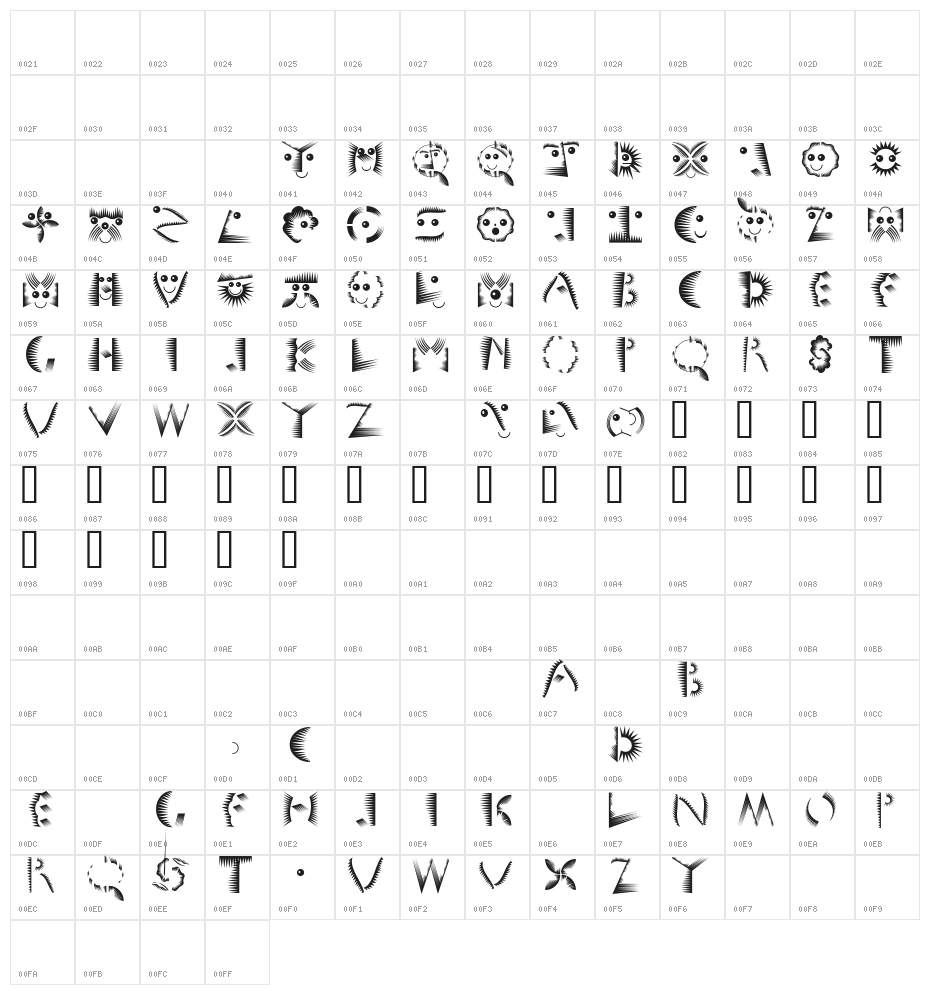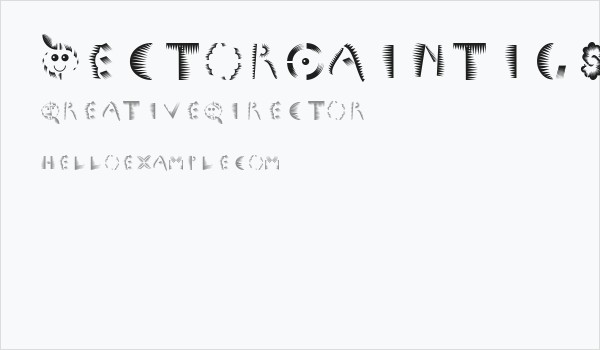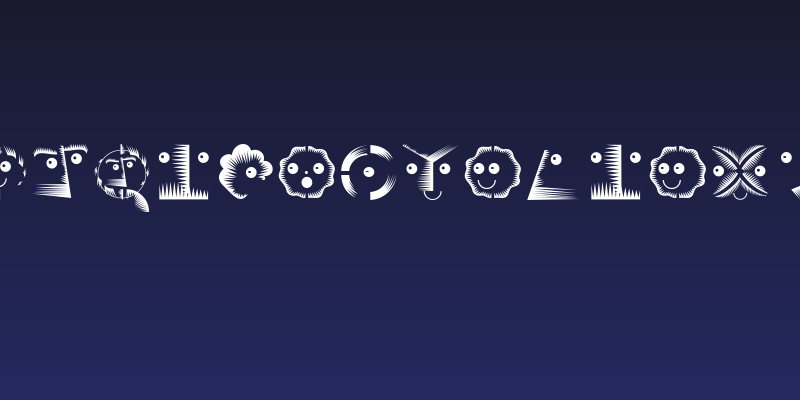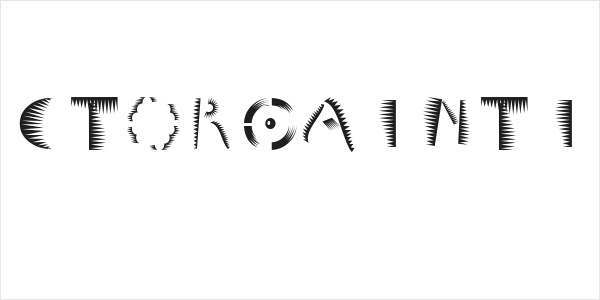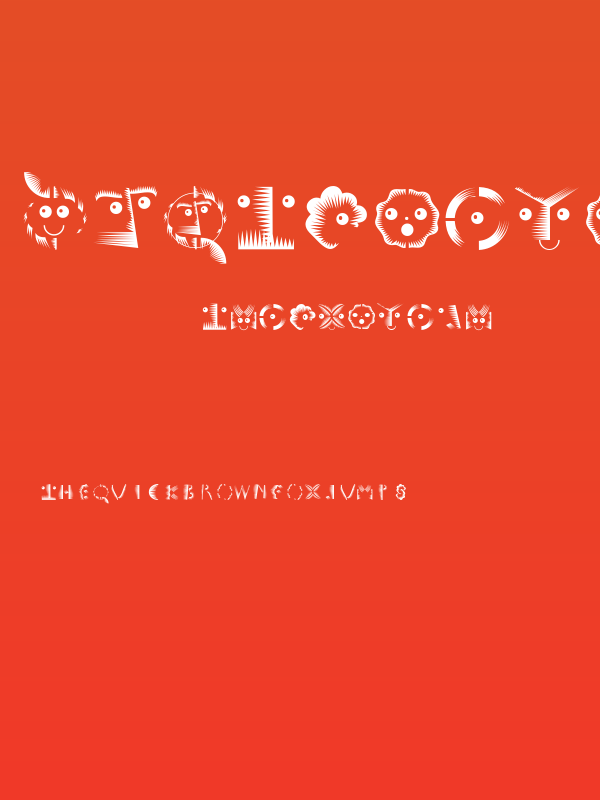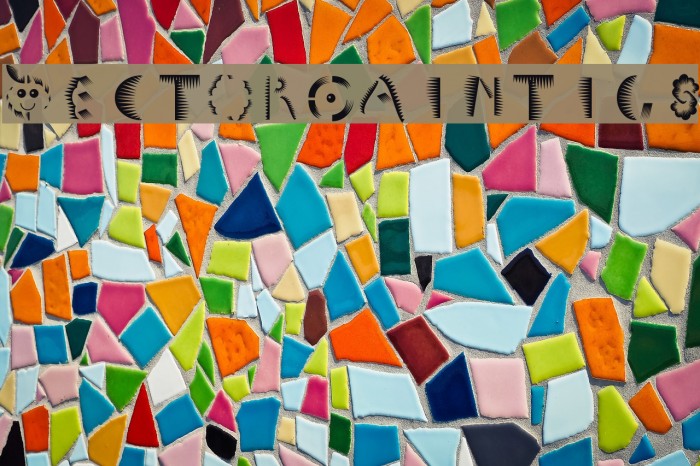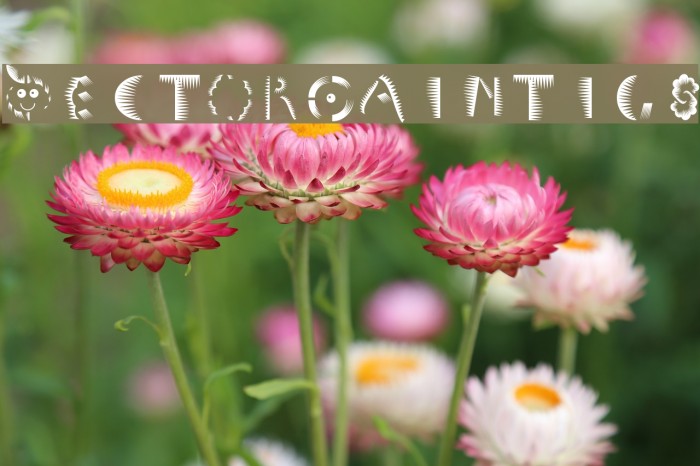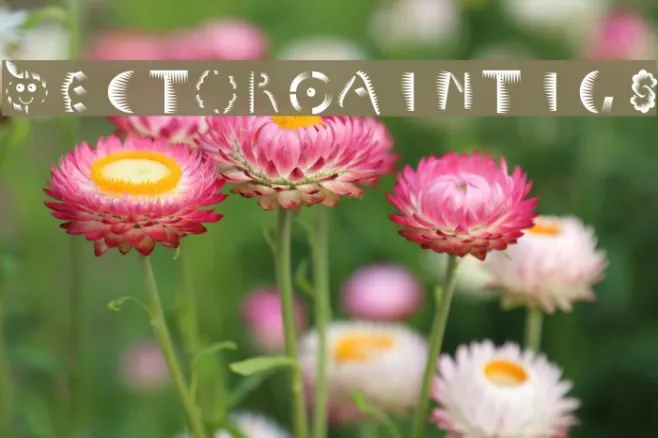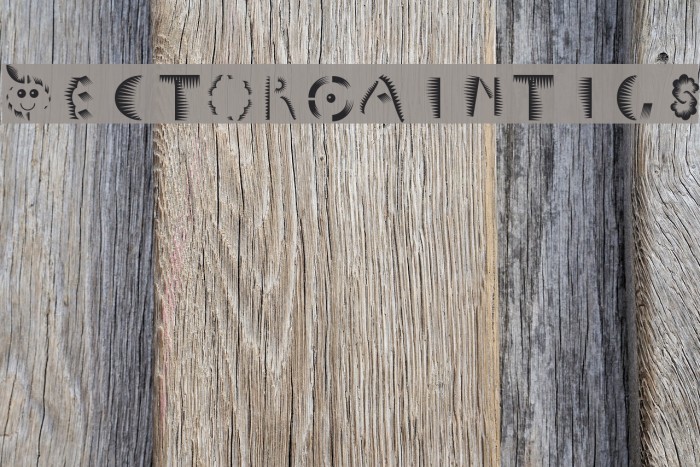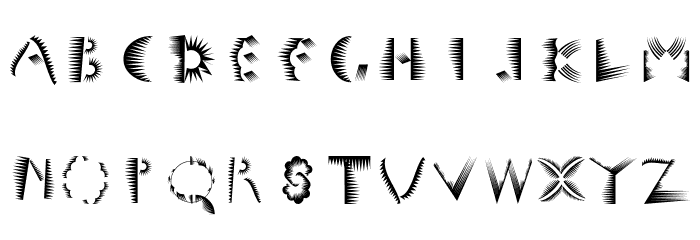
VectorPaintigs Font
VectorPaintigs Description
This font features a highly decorative and artistic style, with each character uniquely designed with intricate patterns and shapes. The letters are composed of various geometric elements, creating a sense of movement and dynamism. The use of bold lines and sharp angles gives the font a striking appearance, making it ideal for eye-catching designs. The characters are not uniform, with each letter having its own distinct flair, adding to the overall creative and playful aesthetic. This font is perfect for projects that require a bold statement and a touch of artistic flair.
| Use Case | Headlines, Logos, Artistic projects |
| Proposed Projects | Ideal for posters, album covers, artistic branding, and creative digital artwork. |